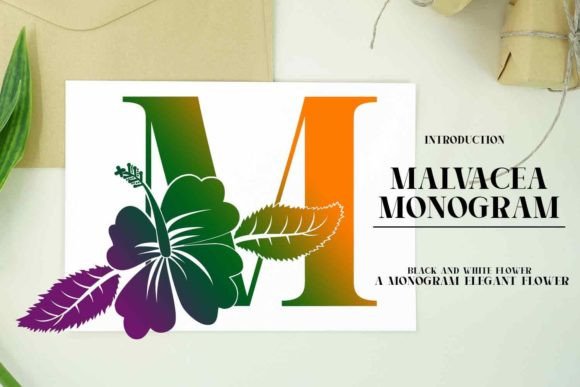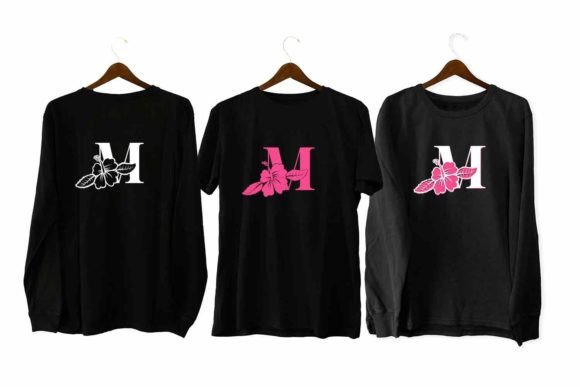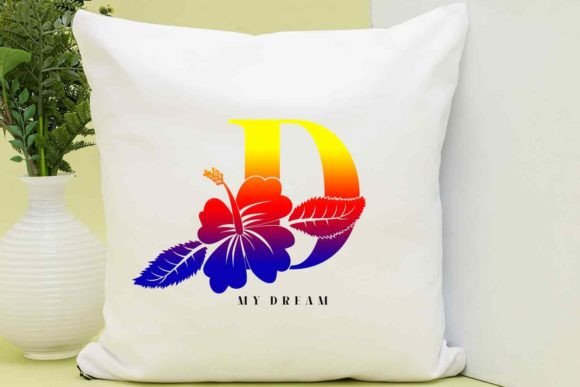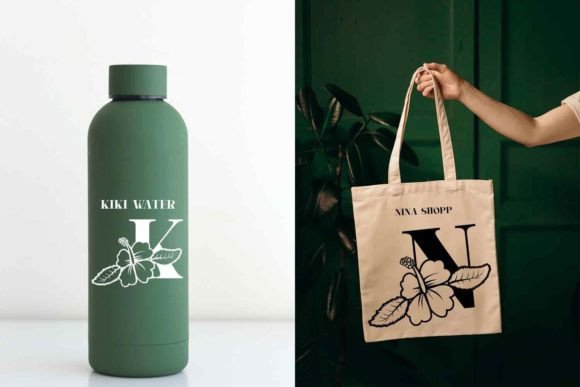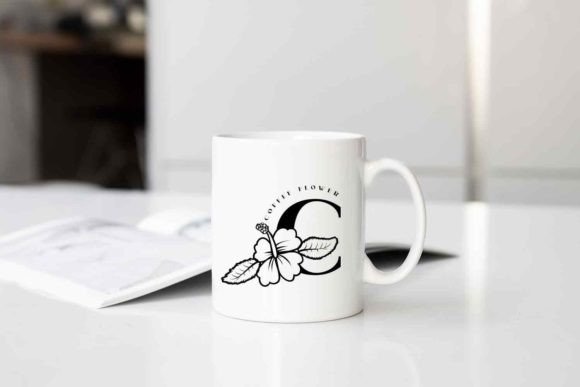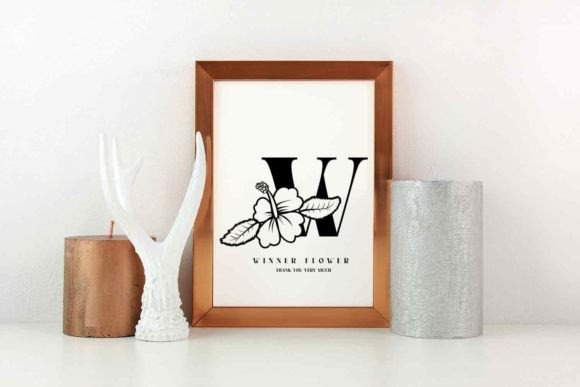
Introduction to Malvacea Font
As a designer, have you ever found yourself stuck in a creative rut, searching for that perfect font to elevate your project and make it truly stand out? You’re not alone. We’ve all been there, scrolling through design resources, searching for that elusive combination of style and sophistication to bring our vision to life.
Enter the Malvacea Font, a stunning monogrammed font designed specifically with craft in mind. This beautiful font is not just a pretty face – it’s a valuable tool for designers looking to add a touch of elegance and sophistication to their creative projects.
Whether you’re working on a logo for a fashion brand, designing a set of custom pillows, or creating a unique piece of artwork, the Malvacea Font is the perfect addition to your design arsenal. With its PUA encoded glyphs and ligatures, you’ll have access to a world of creative possibilities, all at your fingertips. And the best part? It’s available for free download, complete with a transparent background for easy integration into your designs.
Key Features of Malvacea Font
- Includes a range of characters, including uppercase and lowercase letters, numbers, and special characters.
- Features a unique, modern design aesthetic with a clean and minimalist approach, suitable for various creative projects.
Honest Review: Malvacea Font
I recently came across the Malvacea Font while searching for a unique design resource for a creative project, and I must say, I’m impressed. As a designer, I’m always on the lookout for high-quality fonts that can elevate my work. The Malvacea Font delivers.
What works well: ✨ The font has a beautiful, elegant design that’s perfect for luxury or high-end branding projects. The characters are well-designed, and the transparent background makes it easy to layer over images or other design elements. The font is also free to download, which is a major bonus for designers on a budget.
- High-quality design that’s perfect for luxury or high-end branding projects
- Well-designed characters with a transparent background
However, there are a few limitations to consider: ⚠️ The font only includes a limited character set, so it may not be suitable for projects that require a wide range of characters. Additionally, the font may not be compatible with all operating systems or design software.
Overall, I’m impressed with the Malvacea Font. While it may have some limitations, its high-quality design and free download make it a great resource for designers working on creative projects. I’d definitely recommend giving it a try.
Malvacea Font is a versatile design resource ideal for creative projects that require a touch of elegance and sophistication. This high-quality font features a transparent background, making it perfect for overlaying on images or using as a standalone element.
Tips for Getting the Most Out of Malvacea Font
For best results, use Malvacea Font in conjunction with a high-contrast background to make the text stand out. Experiment with different font sizes and styles to achieve the desired look.
Malvacea Font is ideal for:
- Social media graphics and advertising
- Wedding and event signage